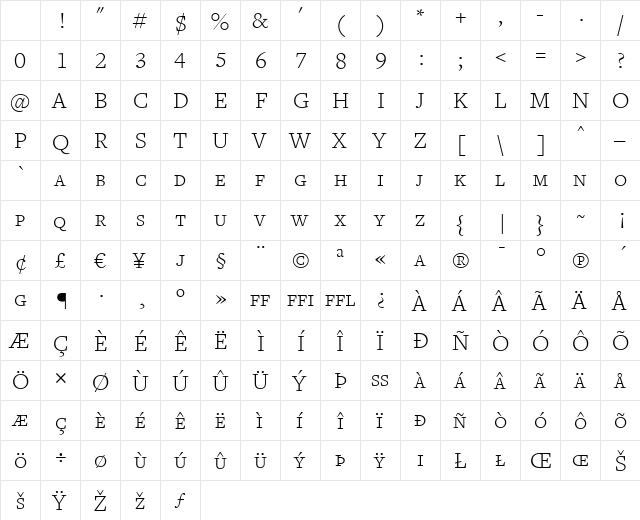
Complete FreightText LightSC glyph index. Displaying only characters natively supported by FreightText LightSC font.
FreightText is a composed and adaptable typeface that performs quietly and consistently across a wide range of design contexts. Its slender proportions lend an understated elegance to any composition.
Who designed the FreightText LightSC font?
This font was published by Joshua Darden & Phil's Fonts, Inc. Check the technical specs section for copyright and designer details.